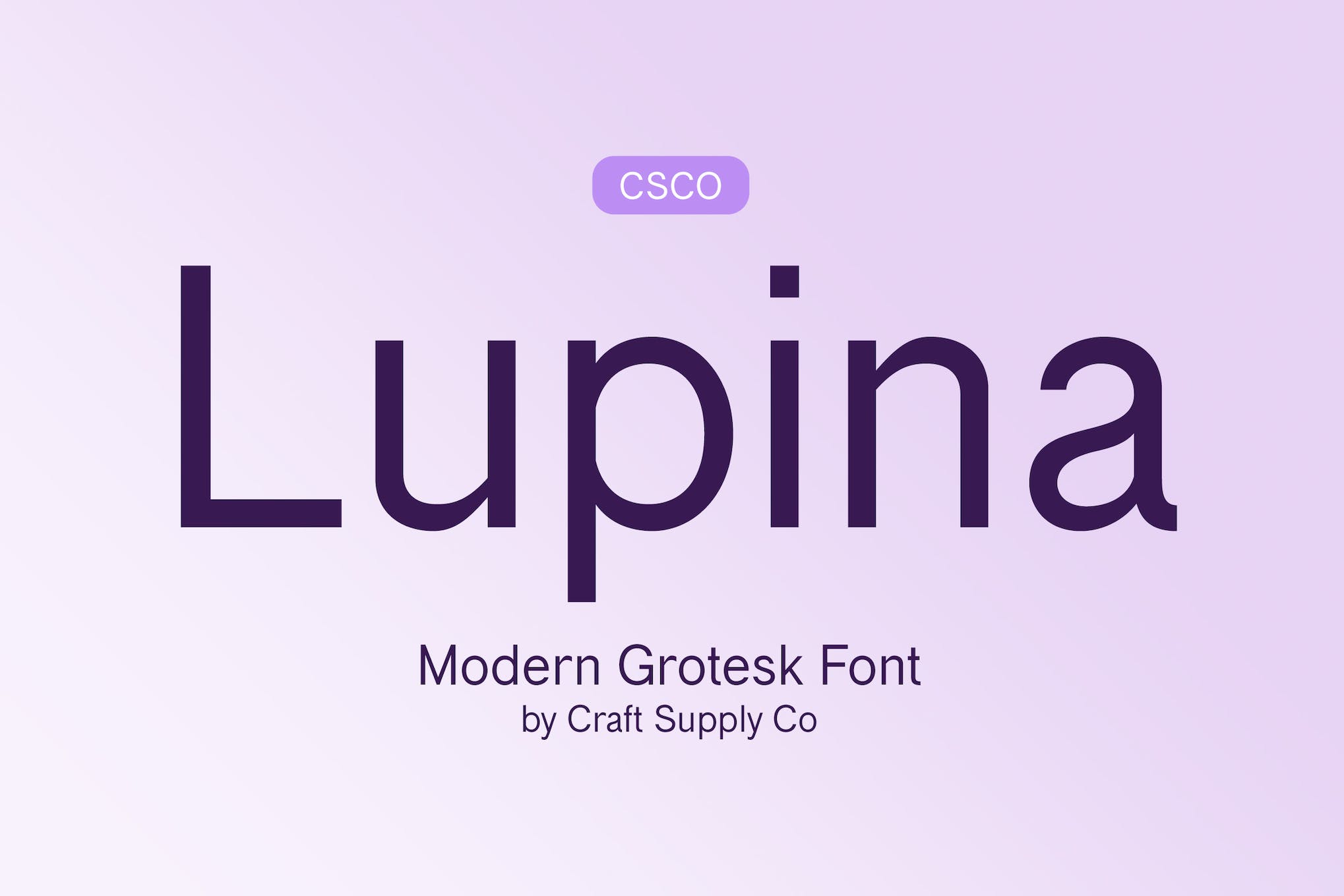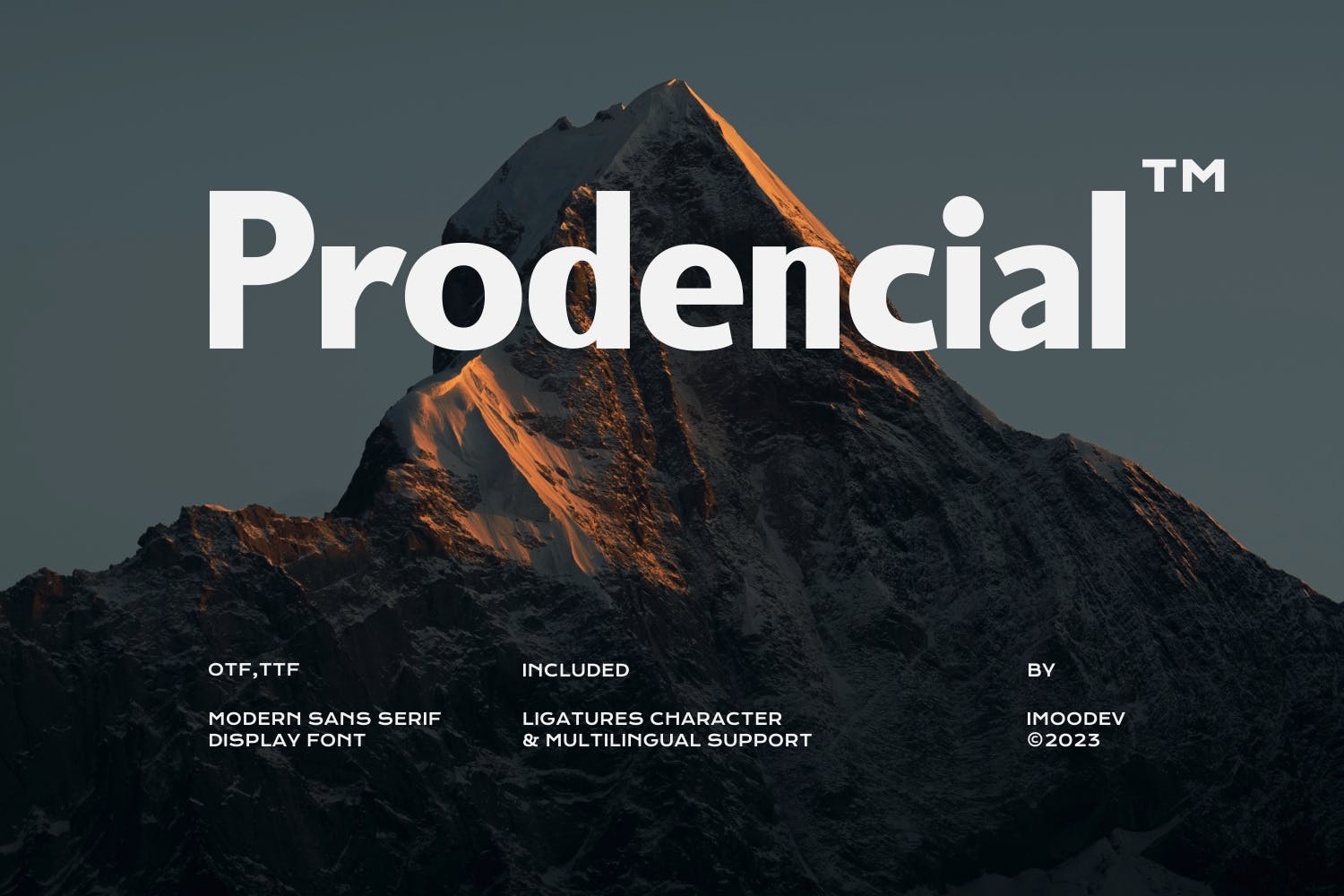
Have you been tirelessly searching for the best Figma fonts to elevate your design project? You’ve landed on the ultimate guide. This comprehensive article provides an array of fonts that are absolutely perfect for any Figma project, whether it’s for an individual creative endeavor, a business brand identity, or to spruce up a design portfolio. These tools could be the refreshing change your digital canvas needs to make a bold statement.
From thin and delicate fonts to robust and sturdy letters, you can find a huge selection of unique typography in this list. Each font on our range exhibits a distinctive graphic style, specially handpicked to give your designs an extra visual appeal. It is the perfect resource for designers and typographers on the hunt for exquisite fonts to incorporate into their projects.
Lupina Modern Grotesk
Lupina Modern Grotesk is a sleek sans-serif typeface that marries modern simplicity with timeless elegance. Ideal for various design projects, from greeting cards to brand identities and posters, this font adds a clean, contemporary touch. Lupina not only captures attention but also encourages creative exploration, becoming a trendy asset for your design needs.
Memoir Modern Figma Typeface
Memoir Modern Display Font is a versatile, contemporary sans serif typeface, perfect for various design needs. Ideal for editorial design, branding or dynamic headlines, it provides OTF and TTF files, along with web fonts. This typeface pack, offering both upper and lowercase glyphs, is updated frequently with new features, making it a valuable asset for any designer’s toolkit.
Profont Modern Font
Profont Modern Font is a versatile Sans Serif font ideal for product logos, headlines, web designs, magazines, packaging, and stationery. It features an Open Type for easy access to unique alternative letters and ligatures, fostering creative custom logo design. Profont can be smoothly utilized across design applications like Adobe Illustrator, Adobe Photoshop, Corel Draw, Affinity Designer, and even web-based platforms like Kittl, Canva, and Artboard studio.
Pulse Rounded Modern Typeface
Pulse Rounded is a versatile, stylish sans serif typeface. Its subtle charisma makes it fit for both headlines and body content. This font family embraces all Latin characters, numbers, special characters and punctuation. Presented in OTF format, Pulse Rounded offers ten distinct fonts comprising of five weights and five italics.
Standerd Modern Grotesk
Standerd Modern Grotesk is a versatile sans-serif typeface with low contrast details, making it perfect for small text designs. This typeface, suitable for various print projects, sparks creativity and enhances the overall visual appeal. It includes both stable and variable versions, catering to different text sizes, making your design process dynamic and efficient.
Prodencial Modern Grotesk
Prodencial Modern Grotesk is a versatile and elegant font, perfect for a wide array of projects. With its smooth curves and charming style, it can elevate your designs to a new level of attractiveness. It includes both uppercase and lowercase letters, punctuations, numbers, and supports multiple languages. Perfect for logos, magazine headings, product packaging and advertisements; it’s a truly versatile creative asset.
Sportive Modern Font
Sportive Modern Font is a distinctive, futuristic sans-based typeface with a unique lowercase that creates a contemporary edge to your designs. Ideal for crafting logos, it’s compatible with both Mac and Windows OS and commonly used design applications like Photoshop and Illustrator. It offers uppercase, lowercase, numbers, symbols, and multilingual support. A versatile asset truly crafted with heart.
Floe Modern Sans
Floe Modern Sans, crafted by Jolicia Type in 2021, is a refreshing and carefully designed typeface made to enhance your text with valued typography. This package is thoughtfully provided with OTF, TTF, and WOFF file options for maximum usability, ensuring your content stands out with modern, eye-catching appeal.
Resfirk Font for Figma
Resfirk Font for Figma is a stunning lettering asset that combines modern aesthetics with elegance. Its careful, neat design makes it a top-choice for contemporary writing needs. Ideal for those looking to infuse creativity and satisfaction into their work, this font includes OTF, TTF, and WOFF formats, making it a versatile asset for your upcoming design projects.
Jenyka Modern Sans
The Jenyka Modern Sans font is a beautiful, neat series of letters designed for modern, eye-pleasing aesthetic. It has a modern look yet retains an elegant vibe for any written piece. With the careful creation of each letter, Jenyka promises satisfaction and creativity for users. It’s available in OTF, TTF, and WOFF, ready to elevate your next design project.
Fantasion Modern Stylish
Fantasion Modern Stylish is a sophisticated sans serif font, complete with effortless access to all glyphs and swashes thanks to its PUA encoding. It’s versatile, ideal for assorted crafting purposes ranging from cards to branding or labels. The font supports various formats, including OTF, TTF, WOFF, and is compatible with multiple design software such as Adobe Illustrator, Adobe Photoshop, Microsoft Word, or Adobe InDesign.